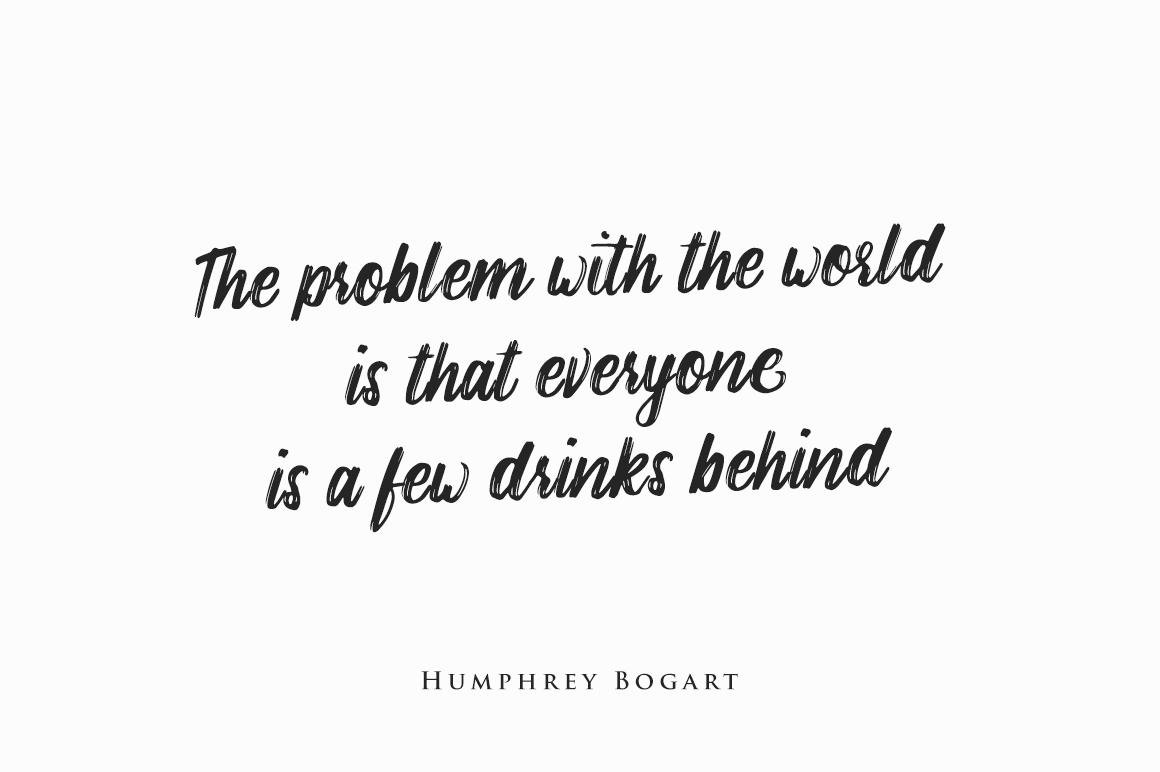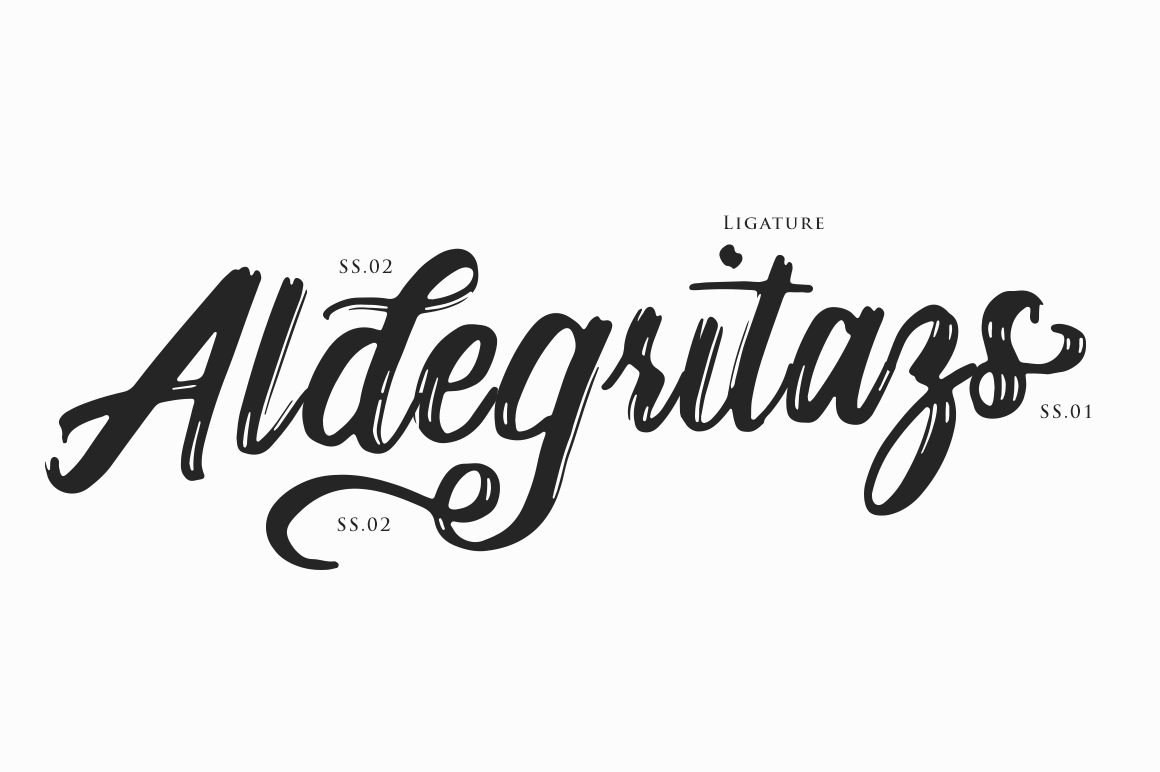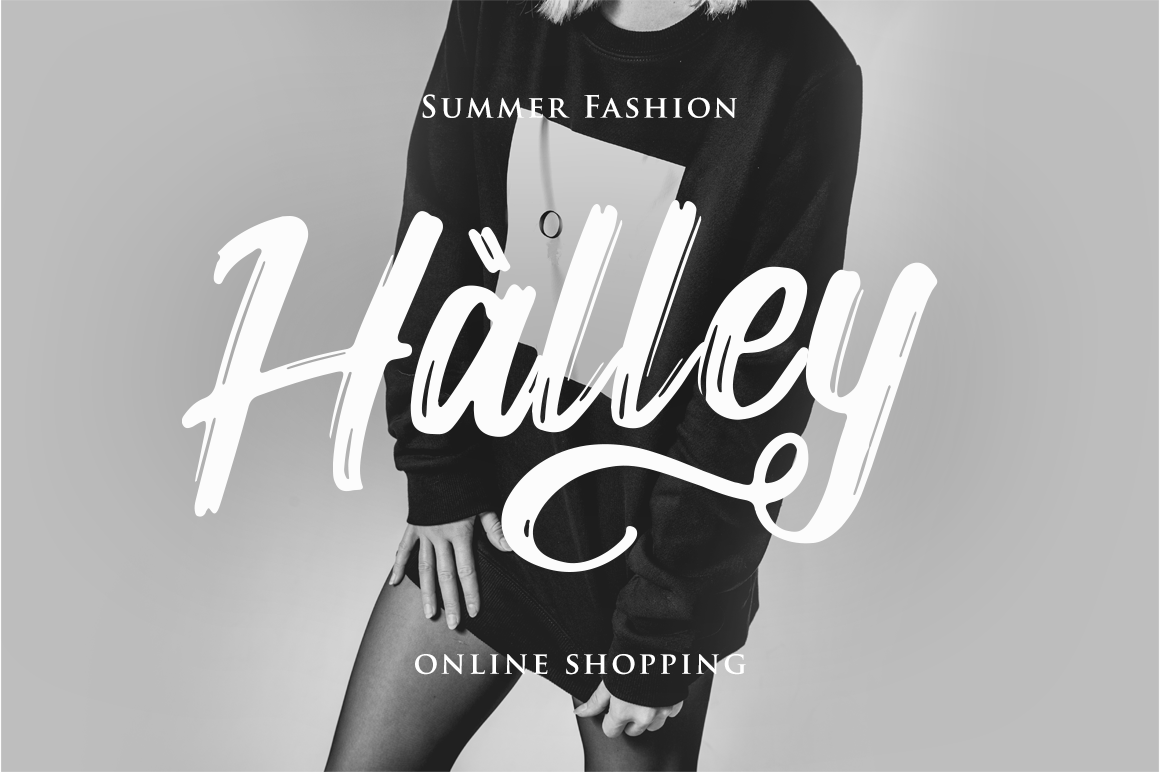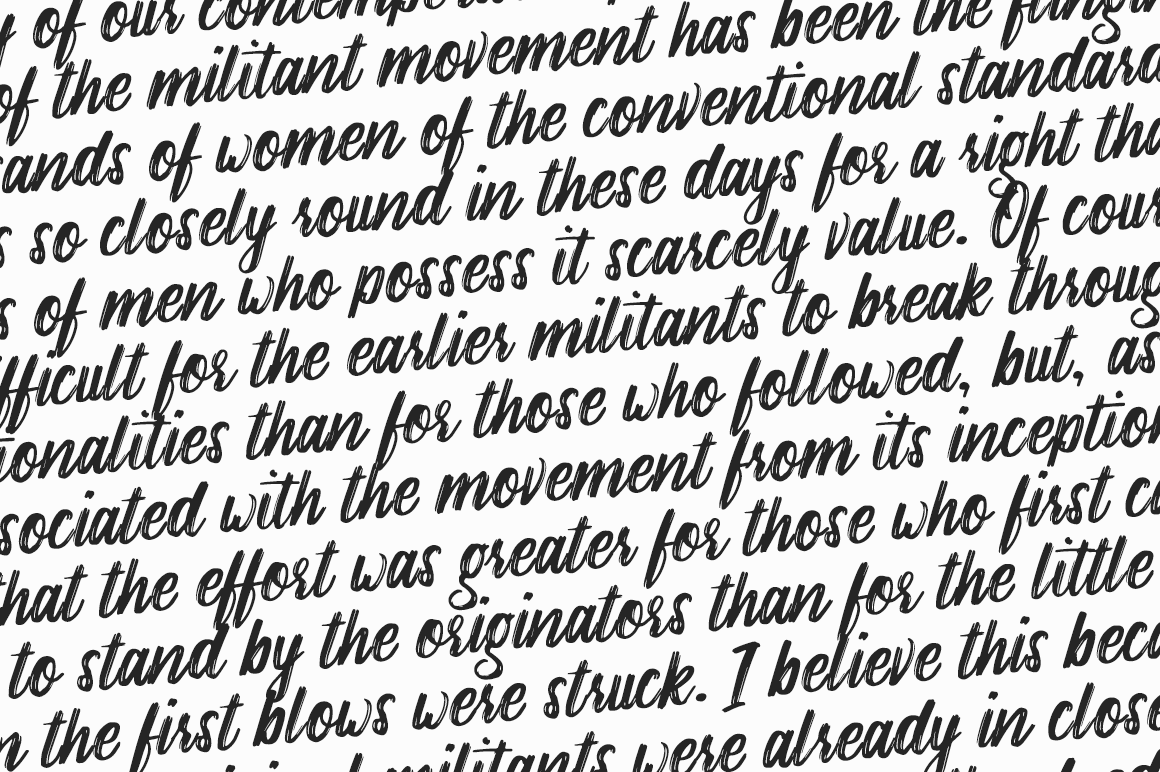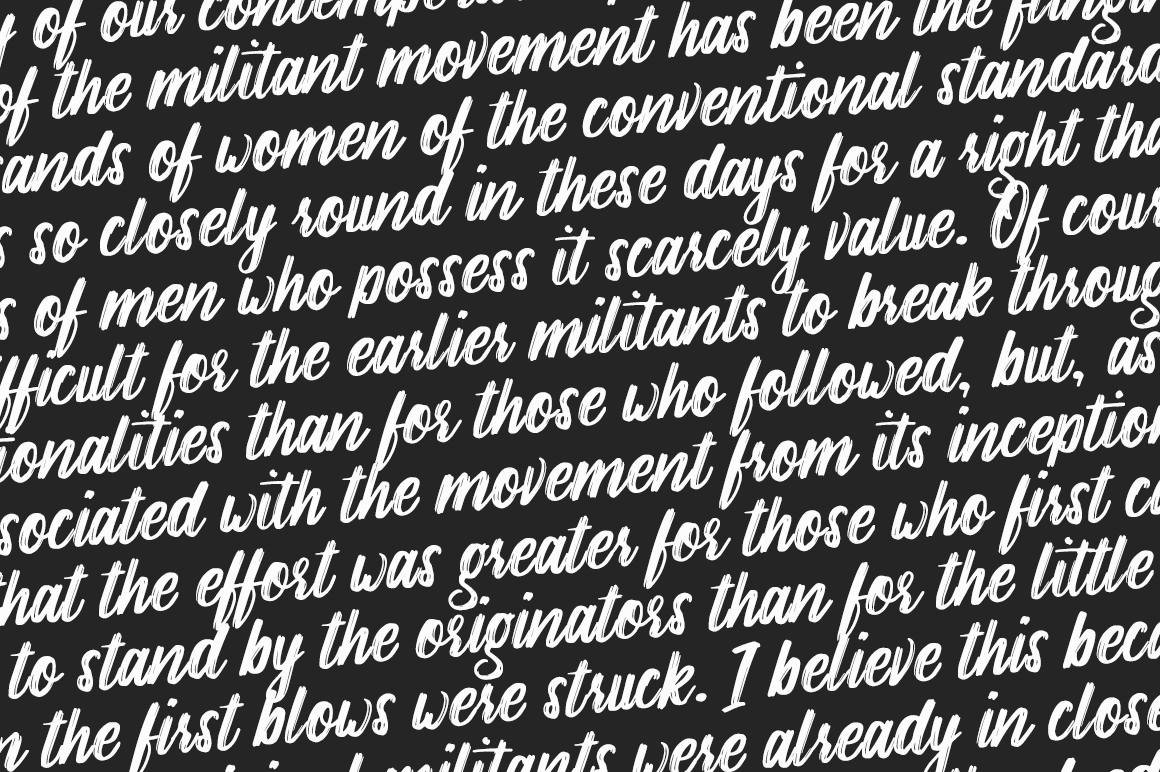
Introduction to Bogart Font
“Bogart is a casual, free-flowing and fresh font crafted in a brush stroke style.
This font is hallmarked by nice cursive handwriting with a rough edgy touch All letters have been crafted and arranged carefully.
Key Features of Bogart Font